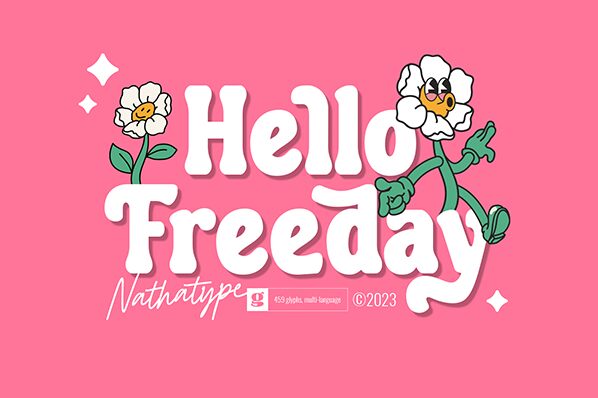
Hello Freeday font, designed by Nathatype, embraces a style that is bold, rounded and playful. Its friendly design possesses high contrast with thick strokes and cartoonish elements, making it an excellent choice for child-like suitable designs. This also has an informal tone making it welcoming at first glance. It is free for personal use.
Use cases: displays lettering, branding materials such as brochures and prints, cartoon and comic-related materials that are casual in nature user-friendly content for adults and children alike non-formal designs such as crafts labels kid-friendly web layouts.